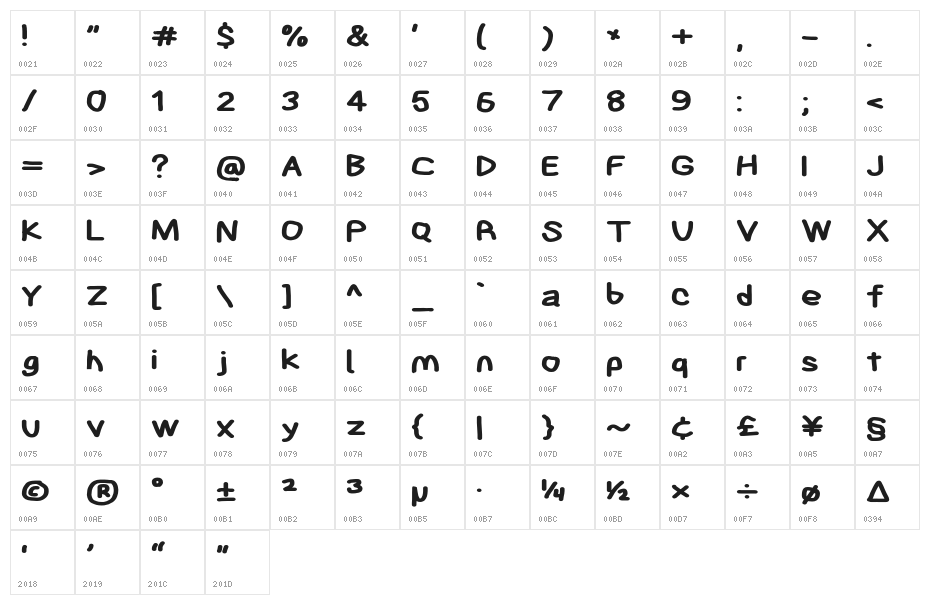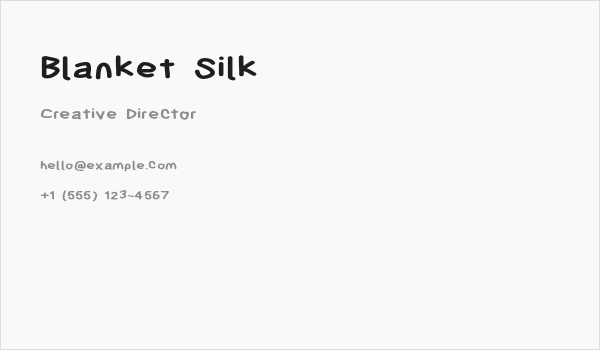
Blanket Silk Font
Blanket Silk Description
This font features a playful and rounded style, with smooth curves and a casual appearance. The letters are bold and slightly irregular, giving them a hand-drawn feel. The uppercase and lowercase letters maintain a consistent thickness, contributing to a cohesive look. The numbers and special characters follow the same design principles, ensuring uniformity across all glyphs. This font exudes a friendly and approachable vibe, making it suitable for informal and creative projects. Its simplicity and charm make it versatile for various design needs.
| Proposed Projects | Ideal for children's books, playful branding, casual invitations, and creative posters. |